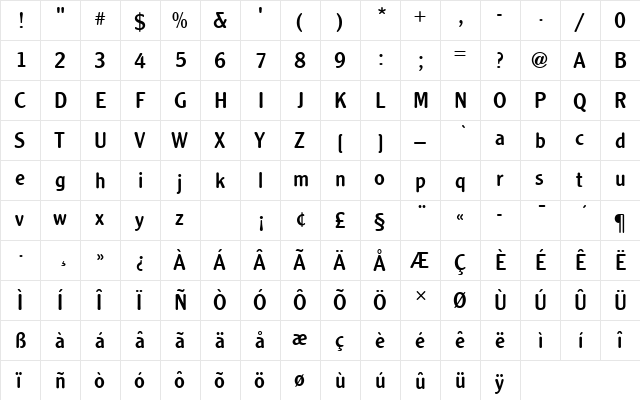
ClearfaceGotTRegRo1 Regular
Design Context for ClearfaceGotTRegRo1 Typeface
ClearfaceGotTRegRo1 is a composed and adaptable typeface that performs quietly and consistently across a wide range of design contexts.